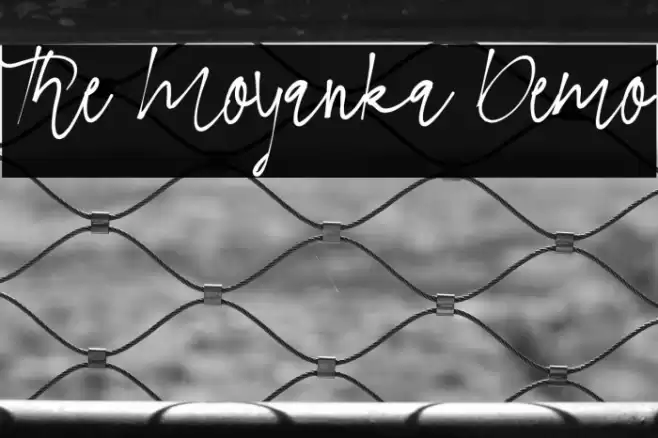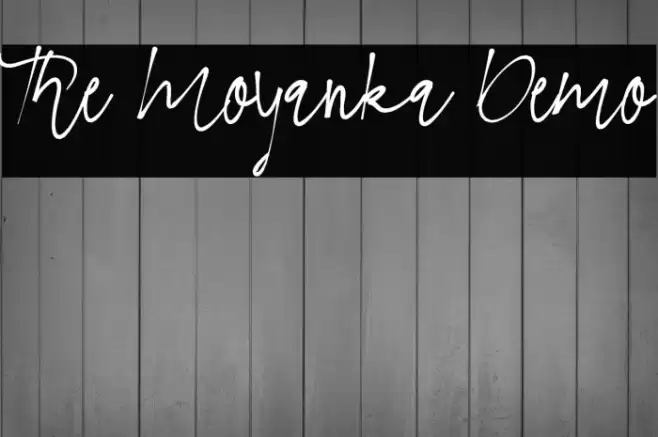
The Moyanka Demo Font
The Moyanka Demo Description
This font exhibits a dynamic and fluid handwritten style, characterized by its elegant and flowing letterforms. The strokes are varied, with some letters featuring elongated and exaggerated lines that give a sense of motion and energy. The uppercase and lowercase letters maintain a consistent style, with a playful and artistic flair. The font's overall appearance is both sophisticated and casual, making it versatile for various design projects. The characters are slightly slanted, adding to the handwritten feel, and the spacing between letters is relatively tight, enhancing the cohesive look of the text.
A dynamic and fluid handwritten font with elegant, flowing letterforms from Regular fonts.
- Proposed Projects: Ideal for wedding invitations, personal branding, greeting cards, and artistic projects.
- Character Spacing: Tight
- Use Case: Logos, Headlines, Artistic projects